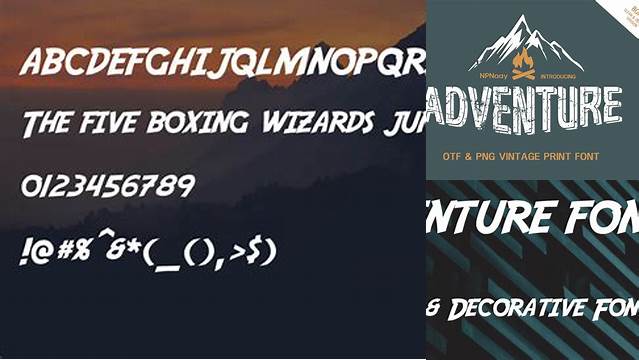
Free Adventure Fonts: A Comprehensive Guide To Download And Use
Are you ready to embark on a typographic journey? If so, you're in the right place! This comprehensive guide is all about big adventure font free resources and how to use them effectively. Get ready to dive into the world of exciting fonts that will add a touch of adventure to your design projects. Whether you're a seasoned designer or just starting out, this article will provide you with all the information you need to find, download, and utilize these amazing fonts. We'll cover everything from where to find free adventure fonts to how to best implement them in your designs. So, buckle up, because we're about to start a big adventure font free exploration! Let’s discover the perfect typeface to bring your creative visions to life. Throughout this exploration of big adventure font free options, we'll also touch upon the nuances of font licensing, ensuring you're always on the right side of the law while creating stunning designs. Let's start this exciting journey into the world of fonts!
1. Unveiling the World of Big Adventure Fonts
Hey guys, before we dive into specifics, let's take a moment to appreciate the incredible range of big adventure font free options out there. These fonts are characterized by their bold, often hand-drawn, aesthetics that evoke a sense of excitement, exploration, and, well, adventure! They can range from rugged and distressed styles reminiscent of vintage maps to clean, modern designs that capture the spirit of discovery. Understanding these different styles is crucial when selecting the perfect font for your project. The goal is always to match the font's personality to the tone and message of your design. For instance, a font with a weathered look might be ideal for a travel blog, while a sleek, modern font could be perfect for a tech company’s branding. The beauty of big adventure font free fonts is their versatility. They can be used in a wide variety of applications, from logos and branding materials to posters, websites, and social media graphics. The key is to experiment and see what works best for your specific needs. Consider the overall look and feel you want to create. Do you want something that feels gritty and realistic, or something that's more playful and energetic? The choices are endless. Also, bear in mind that font pairings are a crucial part of this whole process. Pairing a strong adventure font with a complementary font that's more subtle can create a balanced and visually appealing design. So, as we explore these fonts, keep in mind the overall goal of creating a cohesive and captivating visual experience.
1.1. Defining the Core Characteristics of Adventure Fonts
Alright, so, what exactly makes a font an “adventure font”? Well, let's break down the core characteristics of these popular typefaces. Generally, big adventure font free fonts possess distinctive features that evoke a sense of excitement and exploration. Often, they feature bold strokes and unique letterforms that are easy to read, even at a distance. This readability is super important, especially when used in designs like posters or banners. Many adventure fonts also incorporate elements like rough edges, textured surfaces, or hand-drawn details. These touches add character and a sense of authenticity, as if the font itself has been through its own epic journey. Another key aspect is the overall mood. These fonts tend to create a feeling of wanderlust, freedom, and the thrill of discovery. They speak to the adventurous spirit within all of us. Common themes include nature, travel, and the outdoors. So, if you’re working on a project related to those things, you're in luck! You’ll find a lot of options that are perfect for it. Furthermore, these fonts are often highly versatile. They can be used in many different contexts, from logos and branding materials to website headers and social media graphics. They’re designed to grab attention and make a statement. Some may have a vintage or retro feel, drawing inspiration from old travel posters or explorers' maps. Others may have a more contemporary look, with clean lines and modern designs. The variety is huge, and that’s what makes them so cool. Understanding these characteristics helps you not only identify adventure fonts but also choose the right one for your specific project. Now, let's dive deeper into where to find these awesome resources.
1.2. Recognizing the Visual Impact of Adventure Typefaces
Let's be real, the visual impact of big adventure font free typefaces can be absolutely stunning. The right font can elevate your design, creating an immediate connection with your audience. The bold strokes and unique letterforms that we talked about grab attention instantly. They communicate a message that's both exciting and approachable. This visual impact is especially important in branding, where the font becomes a key part of your identity. Think about the logos of outdoor brands or travel companies. More often than not, they use fonts that have a strong sense of adventure. The right font can communicate your brand's values in a single glance. Beyond branding, adventure fonts are great for creating engaging headlines and titles. They are designed to stand out and make your message memorable. They can be used in posters, website banners, and social media graphics to grab the attention of your audience. The unique character of these fonts can even enhance the emotional connection with the content. They help to set the mood and create an immersive experience. Whether it’s a website about hiking or a book cover about exploring the unknown, the right font can help you build the right experience. The visual impact also extends to the overall aesthetic of your design. They bring a sense of authenticity and character to your work. From vintage-inspired styles to modern designs, adventure fonts can transform your designs. The impact depends on the right choice of font, but it's often significant. Choose the right font, and you can create a memorable and impactful design that truly captures the essence of adventure.
3. Matching Fonts to Your Design Projects
Alright, let's dive into the real fun: matching your big adventure font free finds to your design projects! Picking the right font is key to communicating your message effectively. It's all about creating the perfect visual harmony. Let's talk about how to do it!
3.1. Font Pairing Strategies for Adventure Themes
One of the coolest things about working with big adventure font free fonts is that you can create cool pairings! Font pairings can dramatically improve the look of your projects. Pairing adventure fonts with a complementary font can create awesome results. Let's talk about strategies. First, consider a bold, adventurous headline font paired with a clean, easy-to-read body font. This creates a good contrast and ensures that your headlines grab attention while your body text is easily readable. For instance, pair a strong, distressed adventure font for titles with a simple sans-serif font like Open Sans for body text. Another approach is to find fonts that share similar design elements. For example, pair a slab serif adventure font with another slab serif font. This will ensure a cohesive and consistent aesthetic. If you want to add depth and visual interest, try using a font with different weights and styles. Use a bold weight for headlines and a regular weight for body text. You can also pair different font families. A good adventure font paired with a script font can add elegance to your designs. Be sure to maintain a balance between the fonts to maintain a professional look. Finally, don't be afraid to experiment! Try different font combinations until you find one that works well for your project. The best way to learn is to play around and get creative. Check out font pairing guides and resources for inspiration. Ultimately, the best pairing is the one that looks and feels right for your project.
6.3. Adapting Your Skills for the Evolving Design Landscape
Okay, so, how can you adapt your skills for the evolving design landscape? With so many big adventure font free fonts out there, it is important to stay current on the latest trends in the field. Continue to experiment with new font styles and techniques. Use online tutorials, courses, and workshops to improve your skills. Focus on the fundamentals of design, like typography. Learn about new design tools and software. Embrace new technologies. By building these skills, you can keep up with the ever-changing design landscape. Be prepared to adapt and learn new things. That way, you can thrive in the evolving design world! The future is yours!